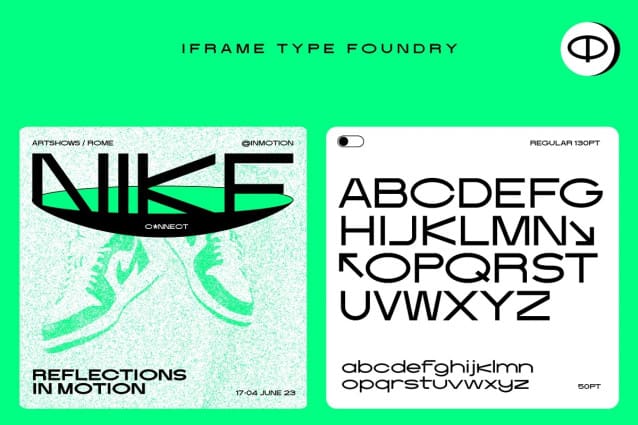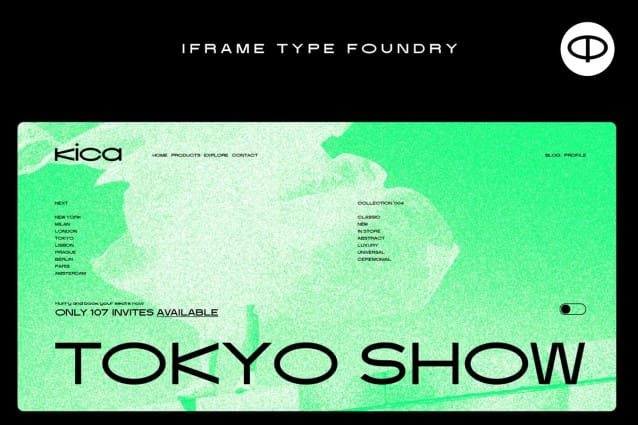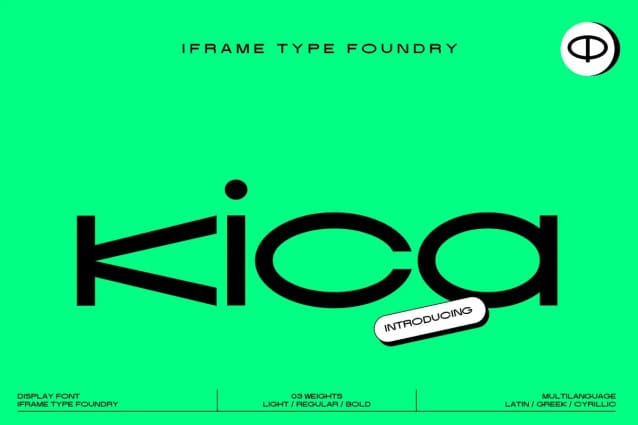
IF Kica Font
IF Kica Font is a modern display typeface that is characterized by its clean lines, bold strokes, and geometric shapes. This typeface was designed with the intention of creating a strong visual impact and capturing attention.
IF Kica’s letterforms are constructed with a contemporary, minimalist approach, making it an ideal choice for various types of design projects. Its straight edges and sharp angles convey a sense of sophistication and professionalism, making it a popular choice for branding and advertising campaigns.
This typeface is also highly legible, even at smaller sizes, due to its well-designed letterforms and ample spacing. It features a wide range of weights, including light, regular and bold, making it a versatile choice for various design applications.
Overall, IF Kica is a stylish and modern typeface that is perfect for creating eye-catching headlines, logos, and other graphic designs. Its bold, confident appearance is sure to make a lasting impression and enhance the visual impact of any project.